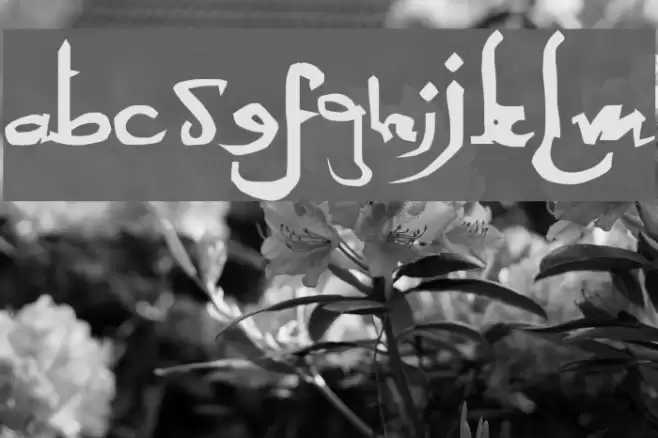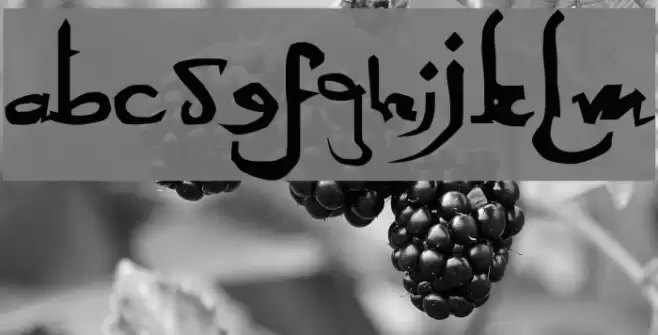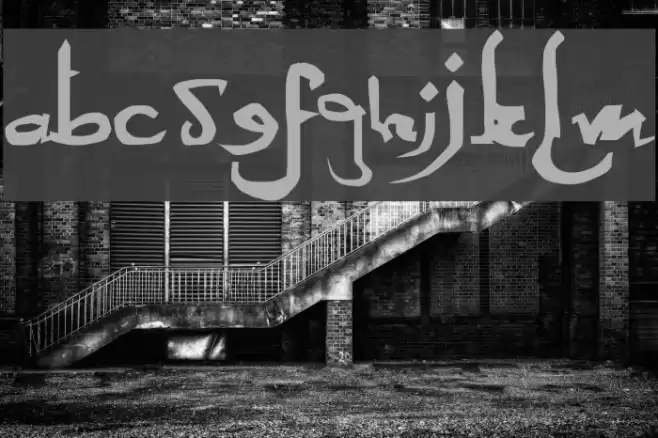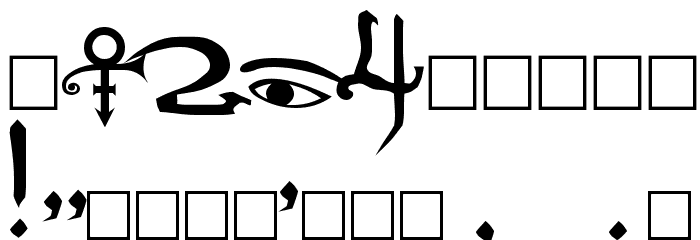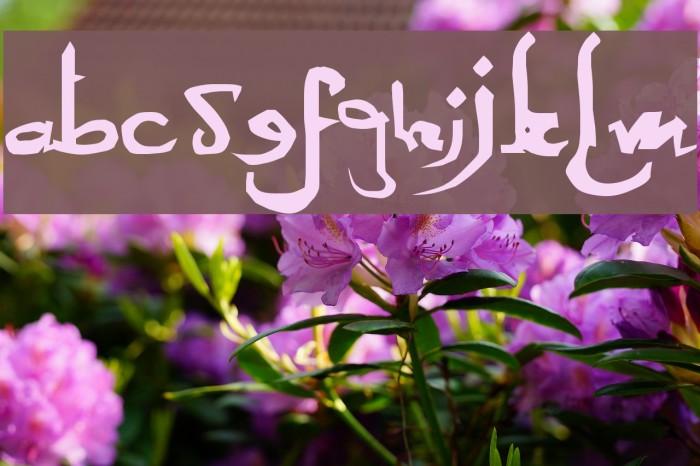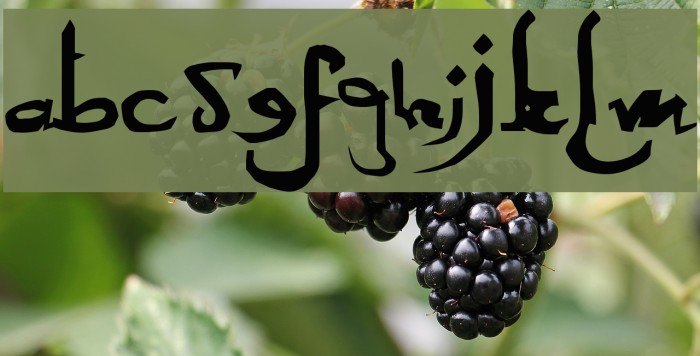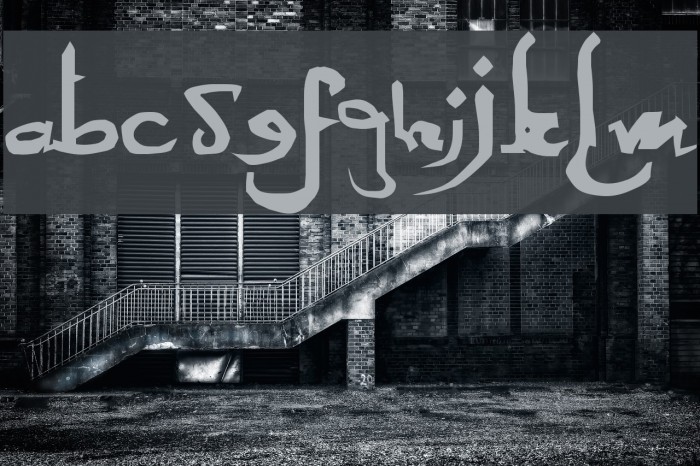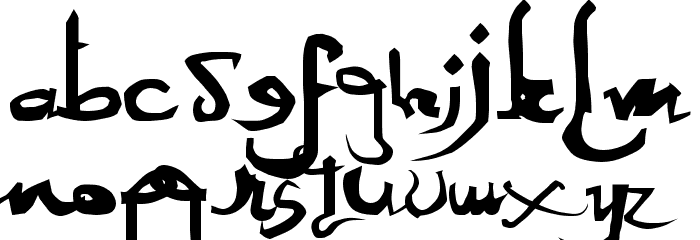
Sexy MF Font
Sexy MF Description
This font features a highly decorative and artistic style, characterized by its bold and dramatic strokes. The letters exhibit a unique blend of curves and sharp angles, creating an exotic and mysterious appearance. The uppercase and lowercase letters maintain a consistent design theme, with elongated ascenders and descenders that add to the font's distinctiveness. The numerals and special characters are equally stylized, contributing to the overall cohesive look. This font's intricate design makes it suitable for projects that require a touch of elegance and flair.
A bold, decorative font with dramatic strokes and exotic flair from Script fonts.
- Proposed Projects: Ideal for artistic posters, album covers, fantasy-themed designs, and branding that requires a unique and eye-catching typeface.
- Use Case: Logos, Headlines, Artistic projects